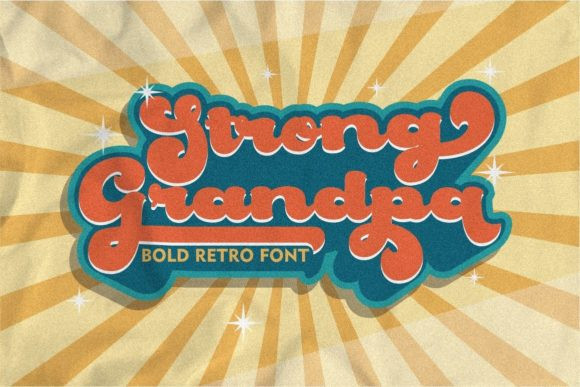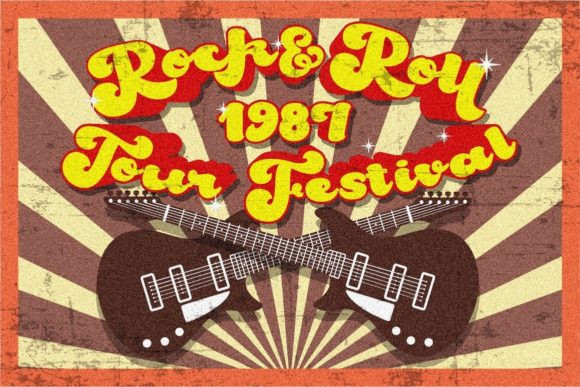
Strong Grandpa Font
Strong Grandpa is a retro and bold handwritten font, crafted to give your headlines and logotype projects a stylish touch. This font reads as strong, confident, and dynamic and can add tons of nostalgic character to your designs.